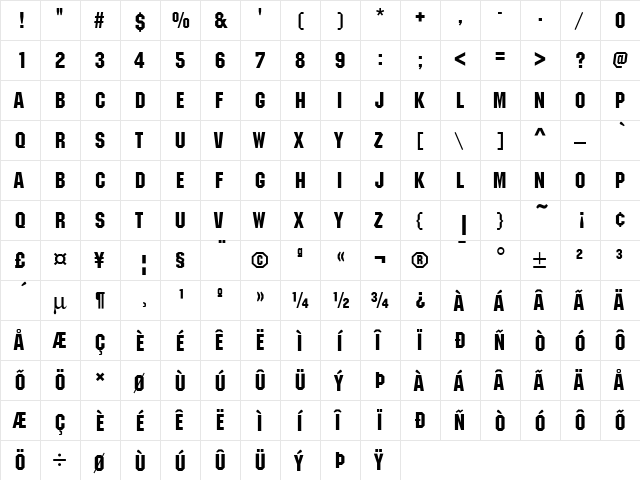
Machine ITC D Regular
Design Context for Machine ITC D Typeface
Machine ITC D takes a measured approach to typography — its balanced proportions and neutral character make it a reliable workhorse for both digital and print work.
Pro Tip: Use Machine ITC D in both headline and body roles to test its range before committing to a single application.